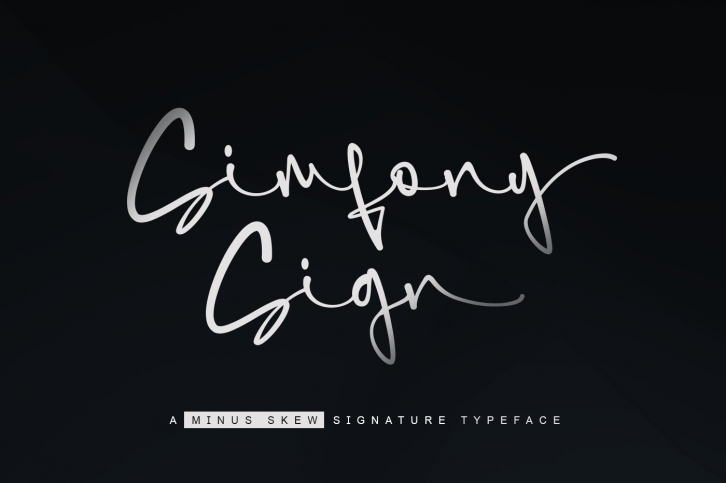
SimfonySign is a trendy and unique font with an authentic style. It was designed by lemonthe and it's a great choice for creative people who need such a font. It was released on August 10, 2020 and the file size is 9.8 MB. SimfonySign will add an organic vibe to any design idea!